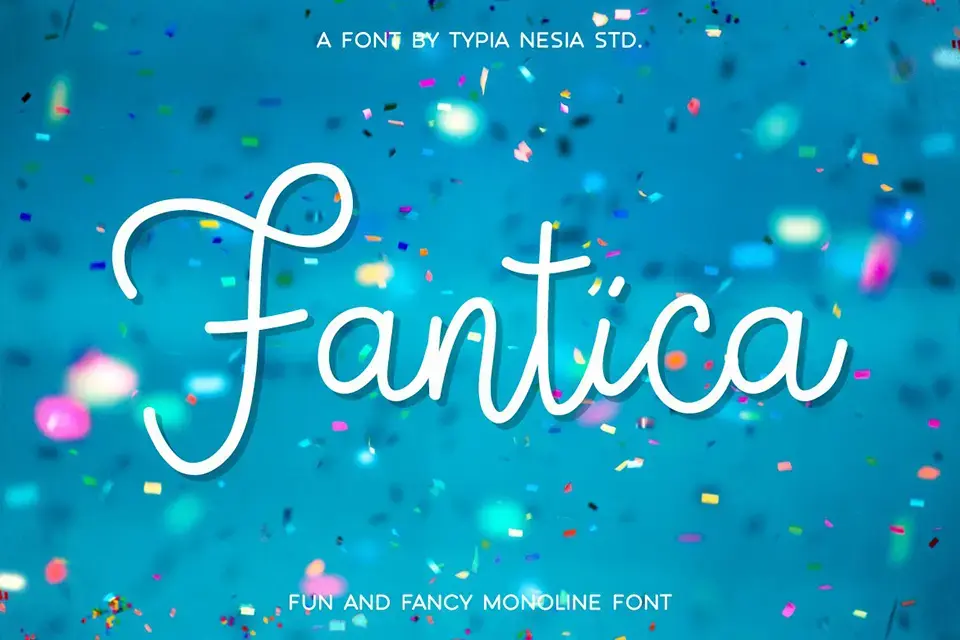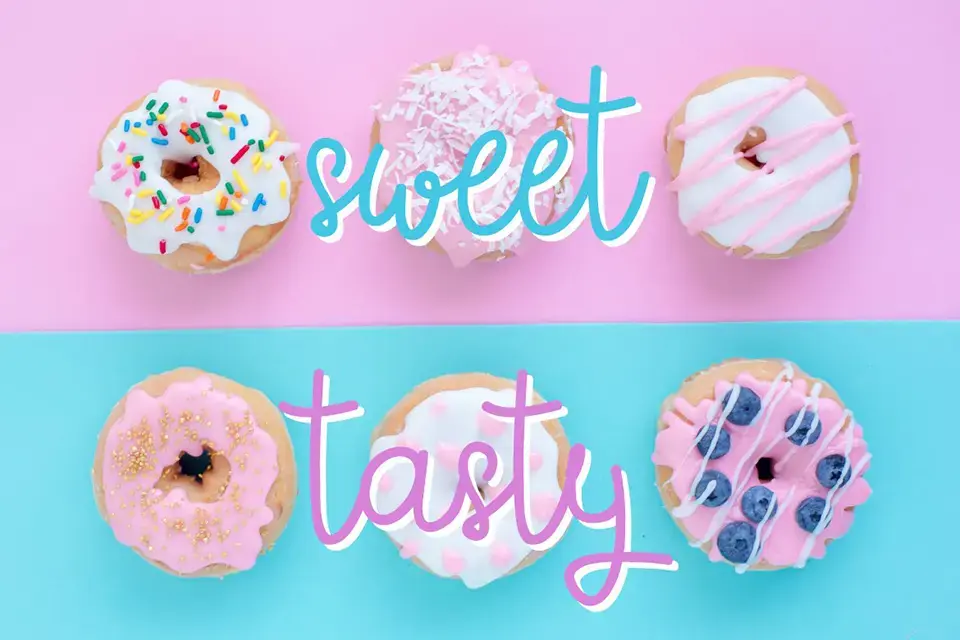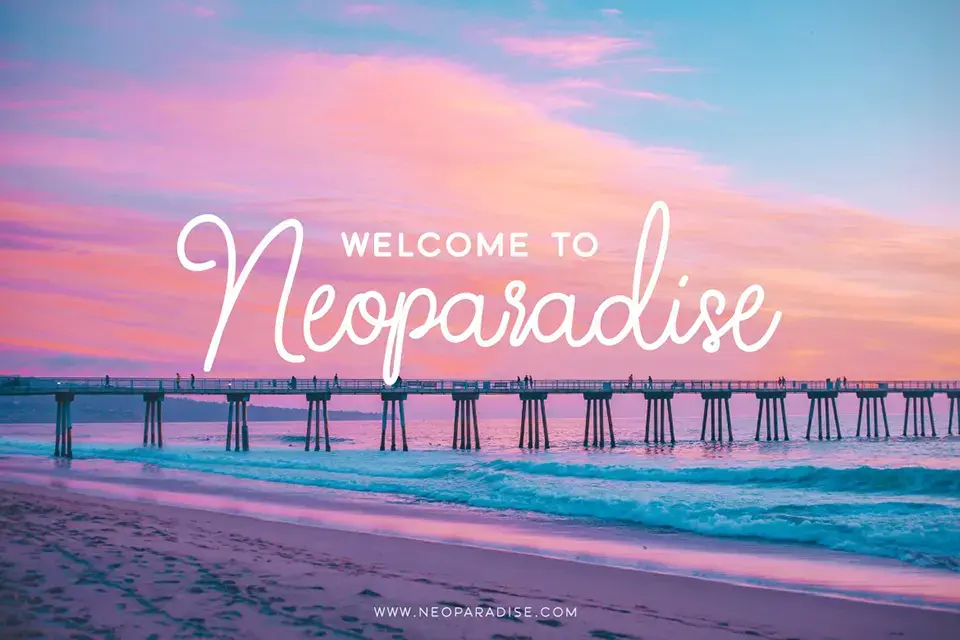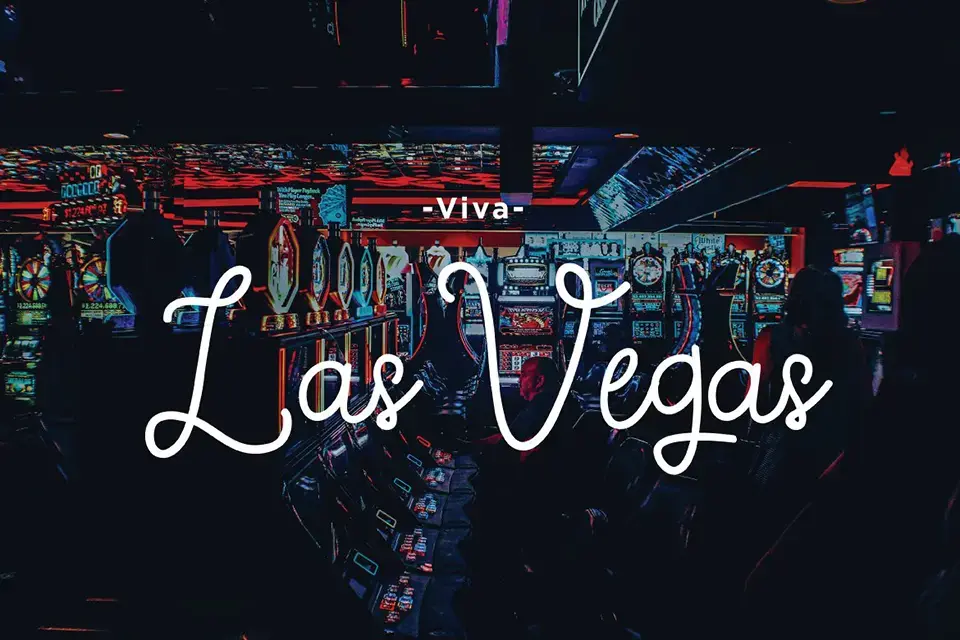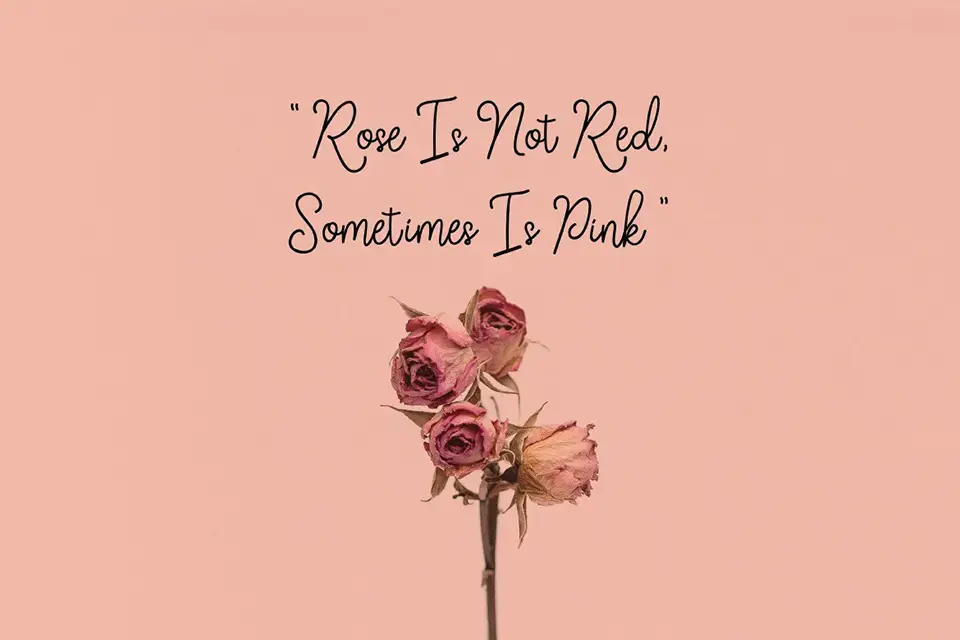
Fantica Font
Fantica is a fun and fancy monoline font designed by Rofi & Arief via Typia Nesia Std. This playful handwritten script features clean, elegant strokes ideal for company logos, personal branding, t-shirts, quote posters, packaging, book covers, display designs, greeting cards, and monoline calligraphy projects. The font combines contemporary aesthetics with decorative charm, making it perfect for creative projects requiring a personal, yet polished handwritten touch suitable for both digital and print applications.